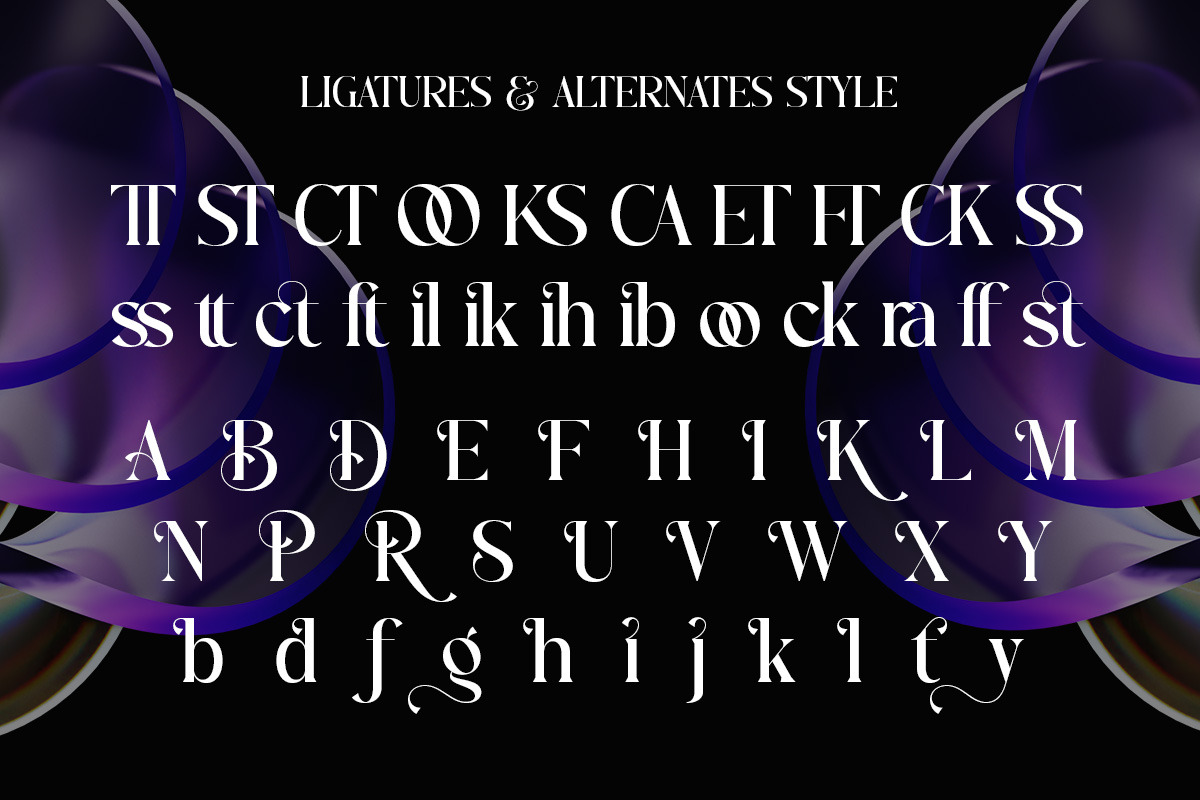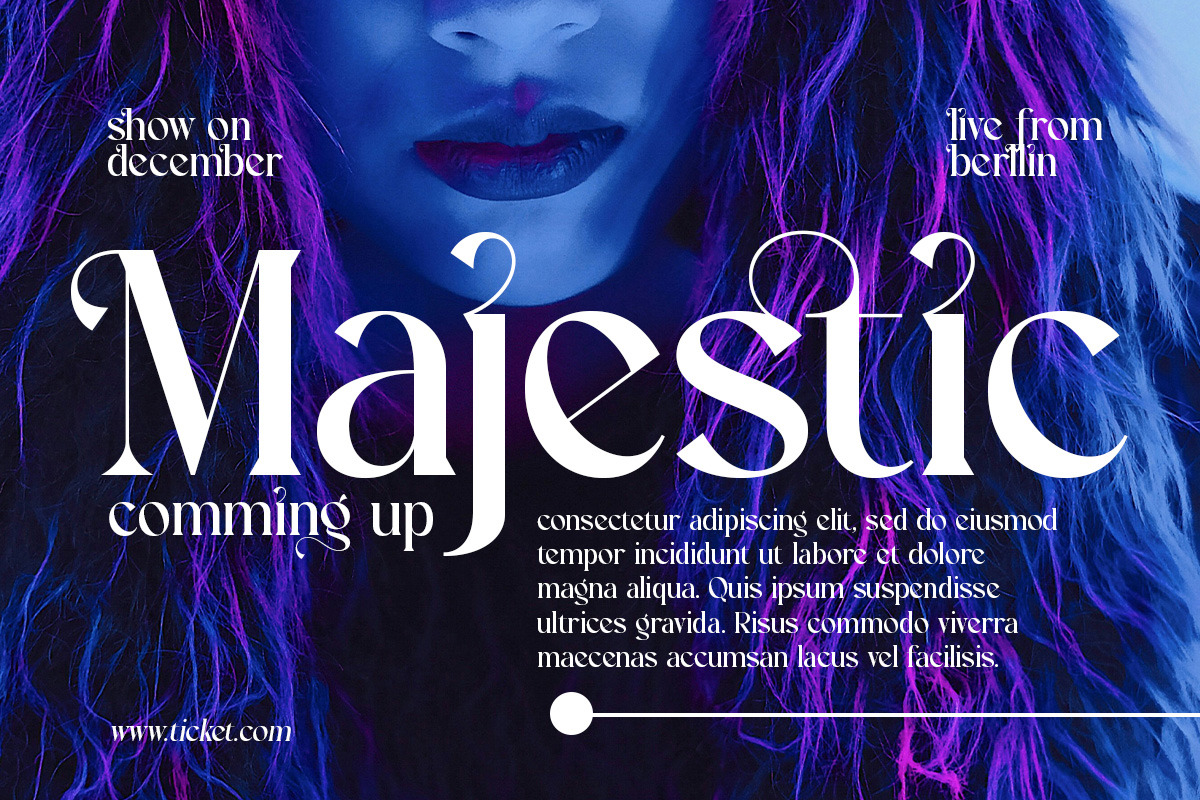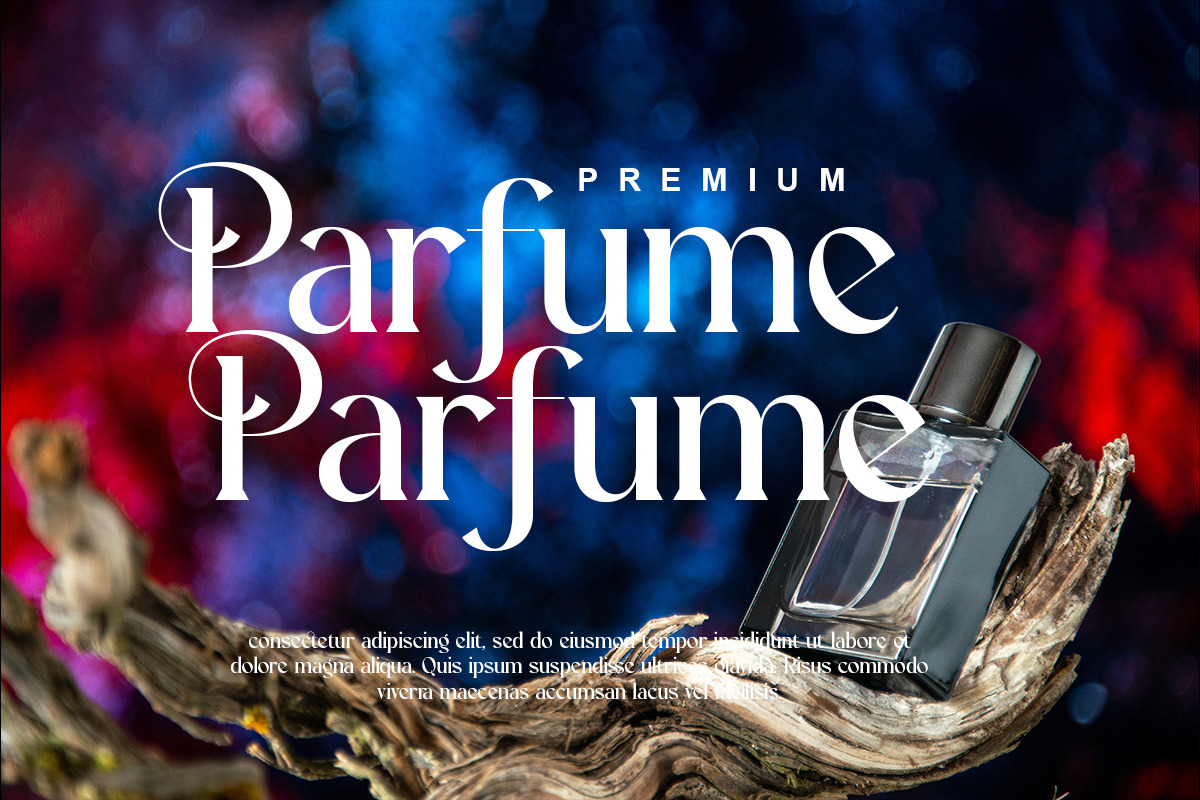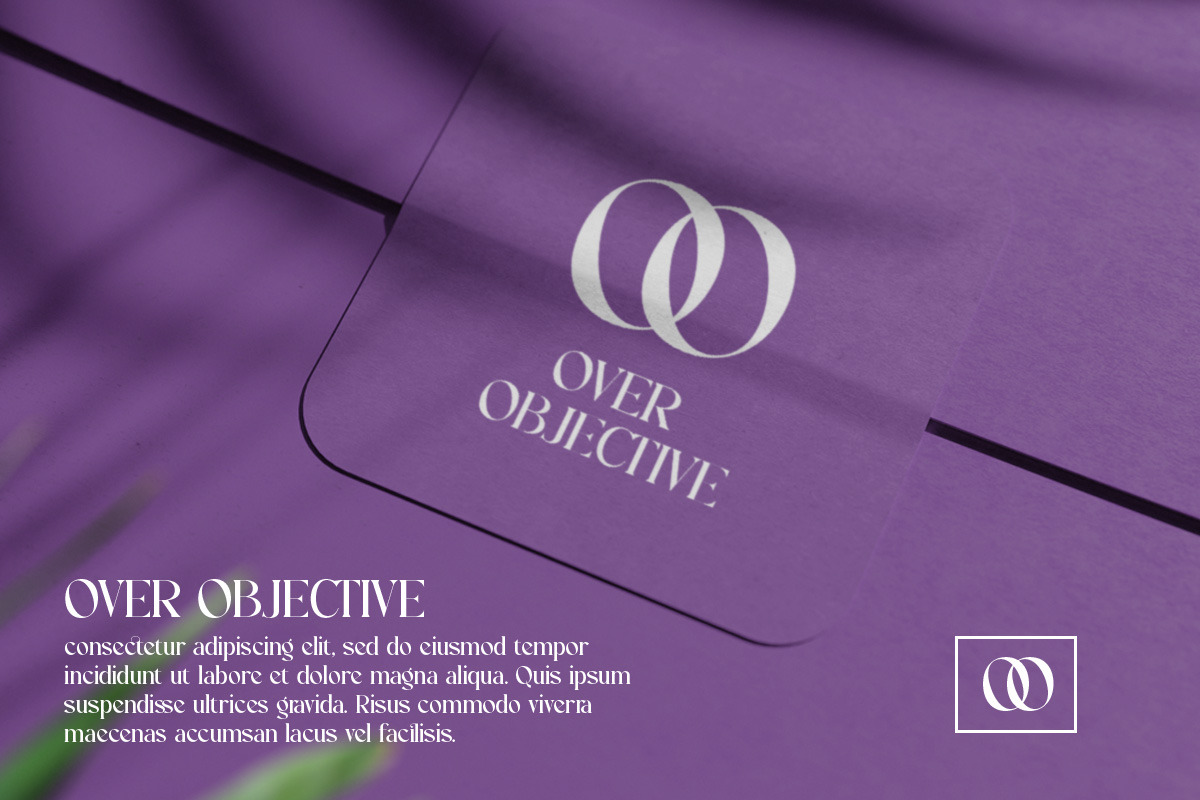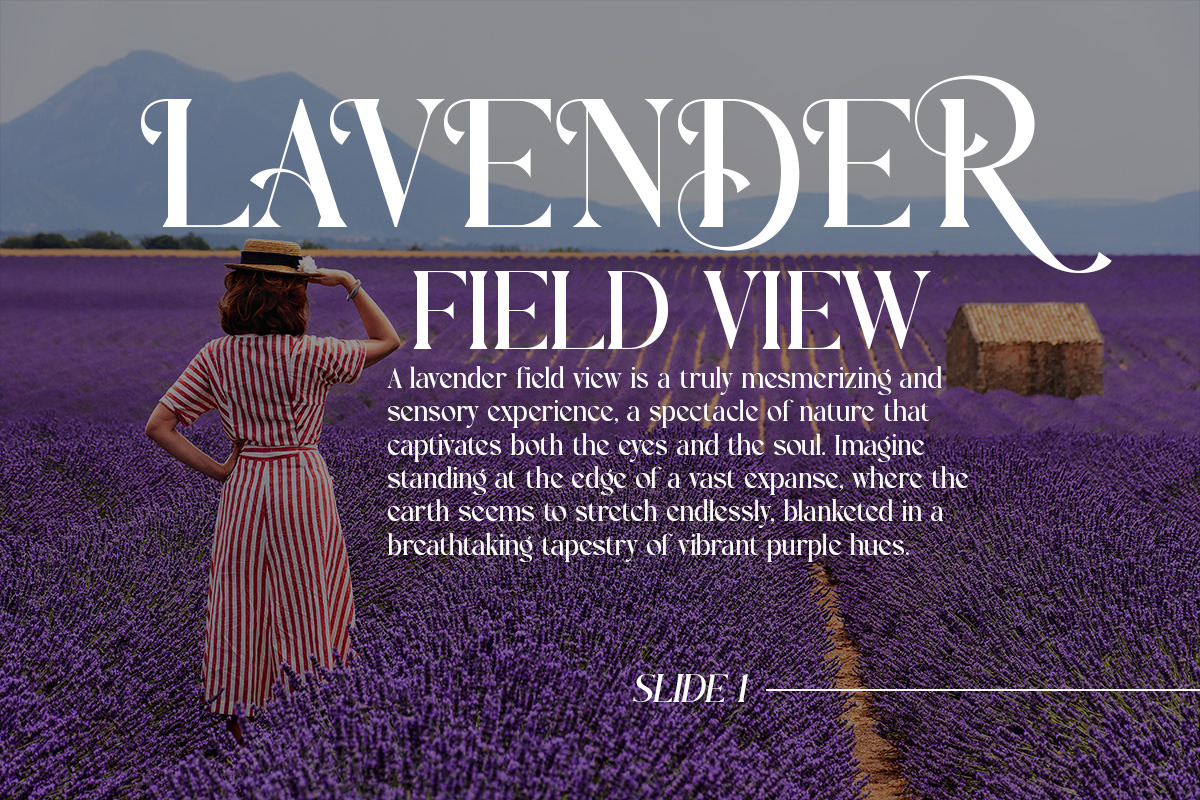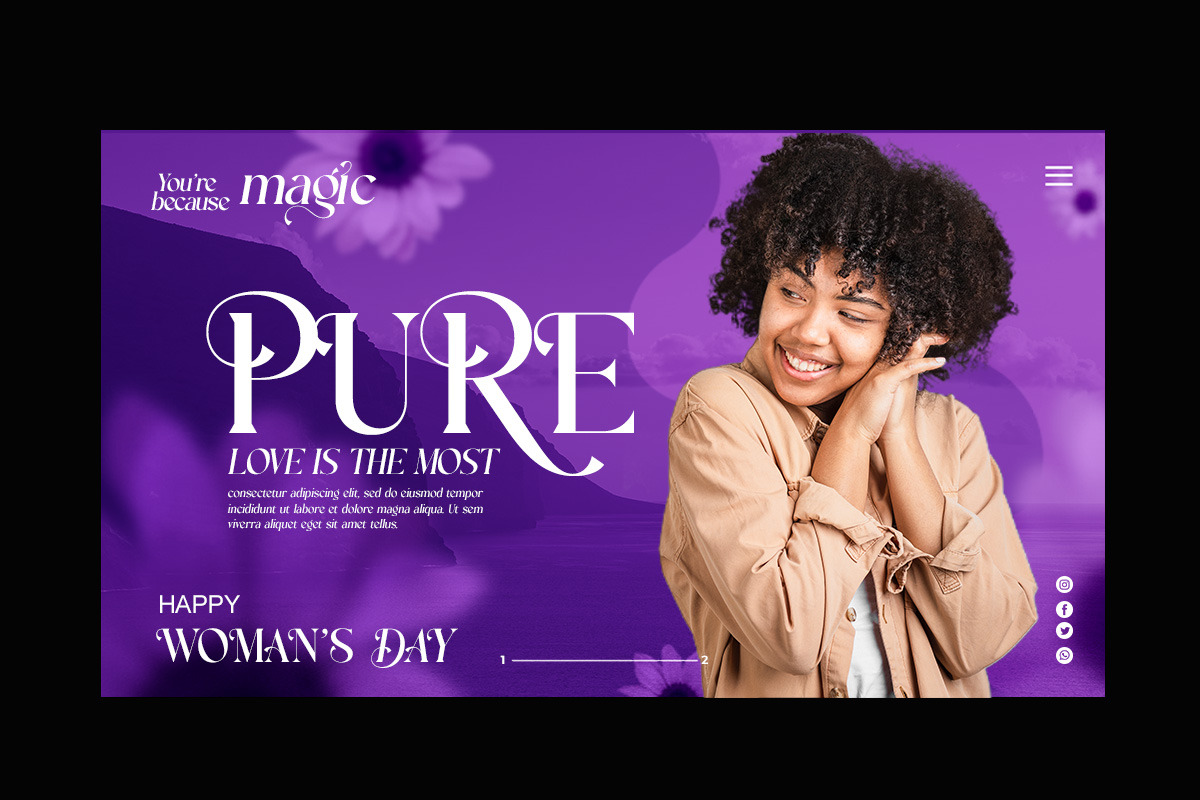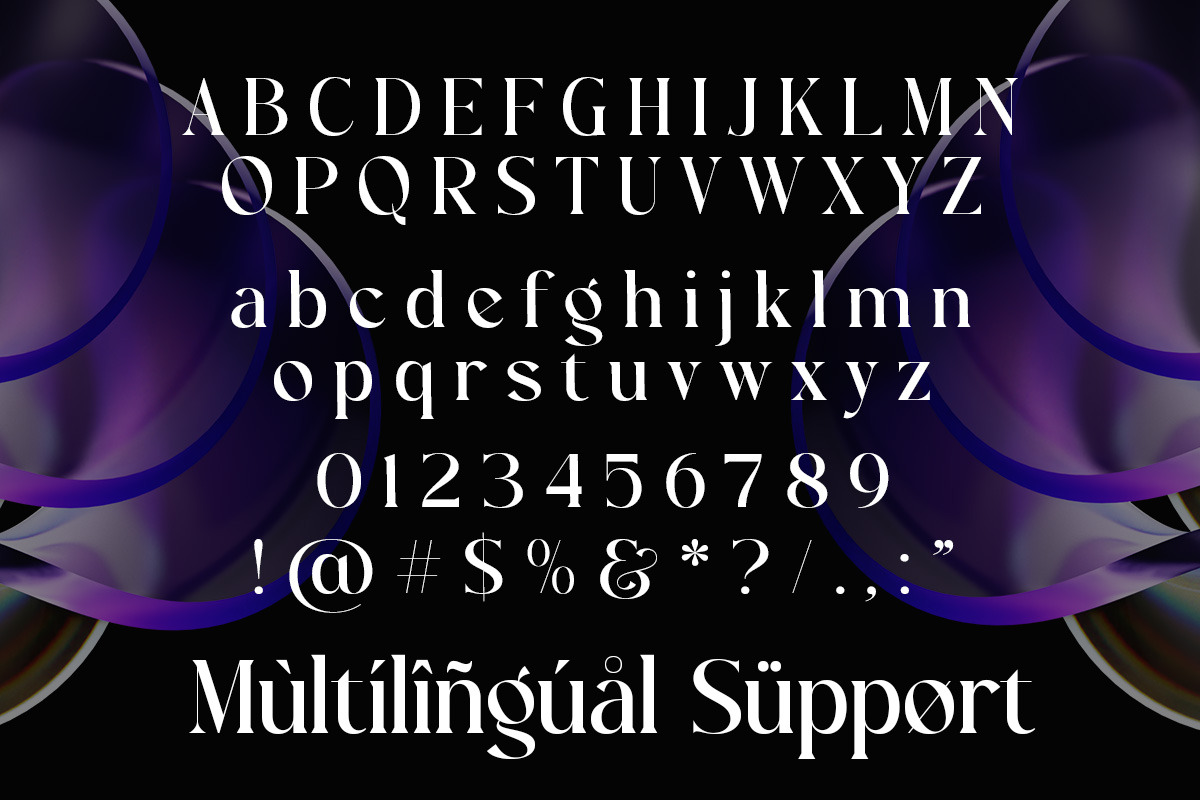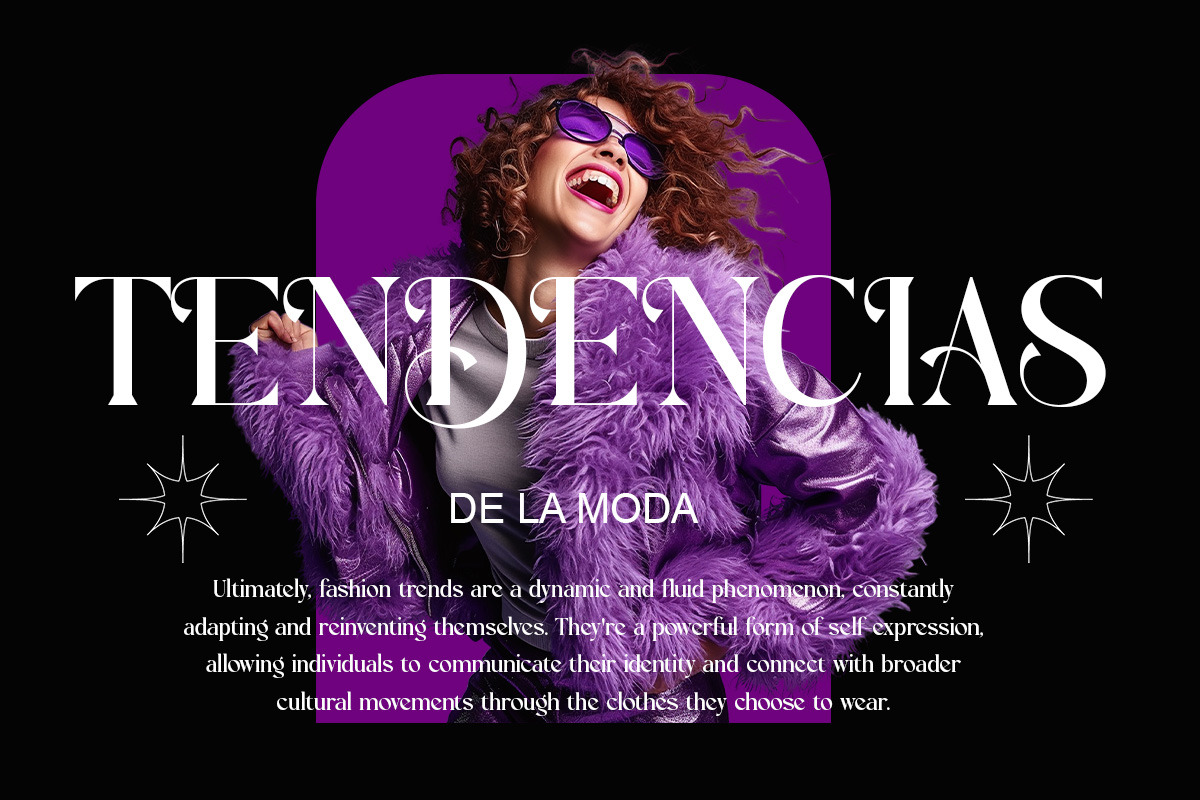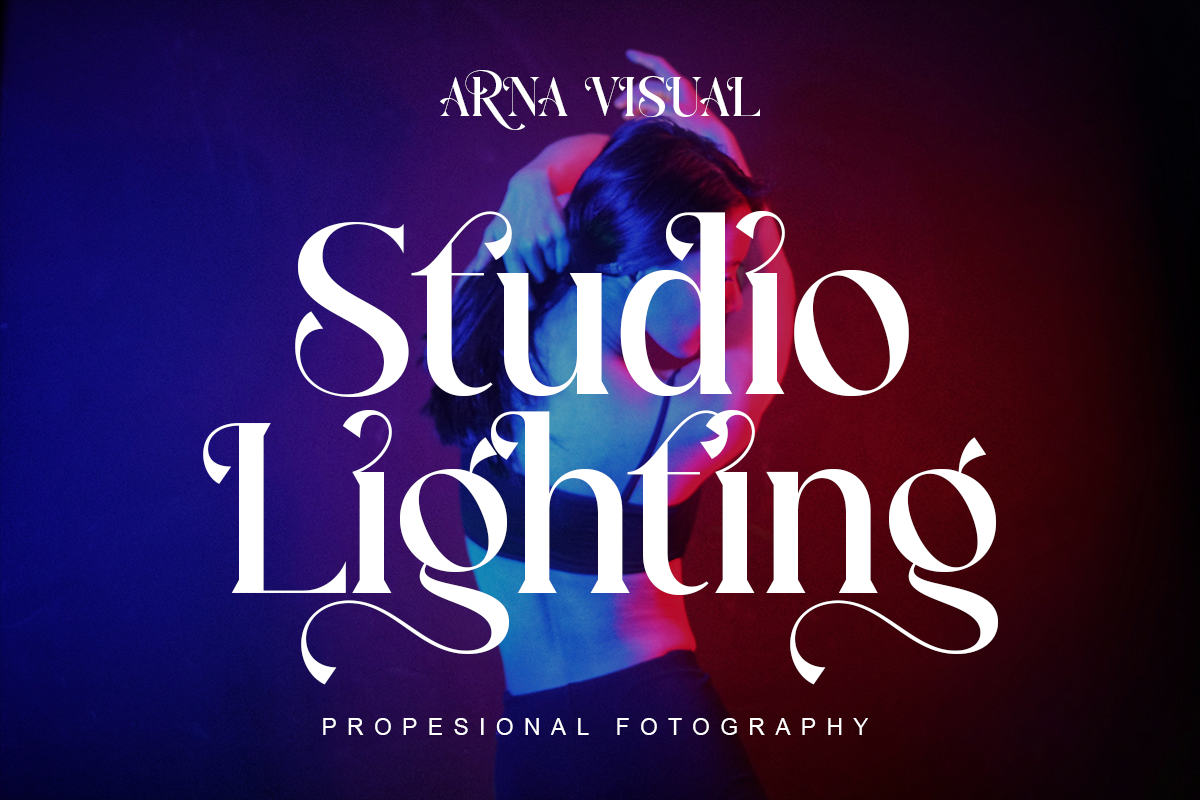
Saffela - Modern Elegant Luxury
Saffela is a refined modern serif font that blends classic elegance with contemporary design.
Crafted with balanced proportions, graceful curves, and sharp details, Saffela is perfect for high-end branding, editorial layouts, invitations, and luxury packaging. Each character is meticulously designed to radiate sophistication and timeless beauty.
Bring elegance and premium quality to every project you create.
- Regular & Italic
- Elegant alternates & ligatures
- High-contrast luxury serif style
- Luxury brand logos
- Wedding stationery
- Editorial titles
- Fashion campaigns
- Boutique packaging
- Premium invitations
Add a timeless luxury feel to your typography.